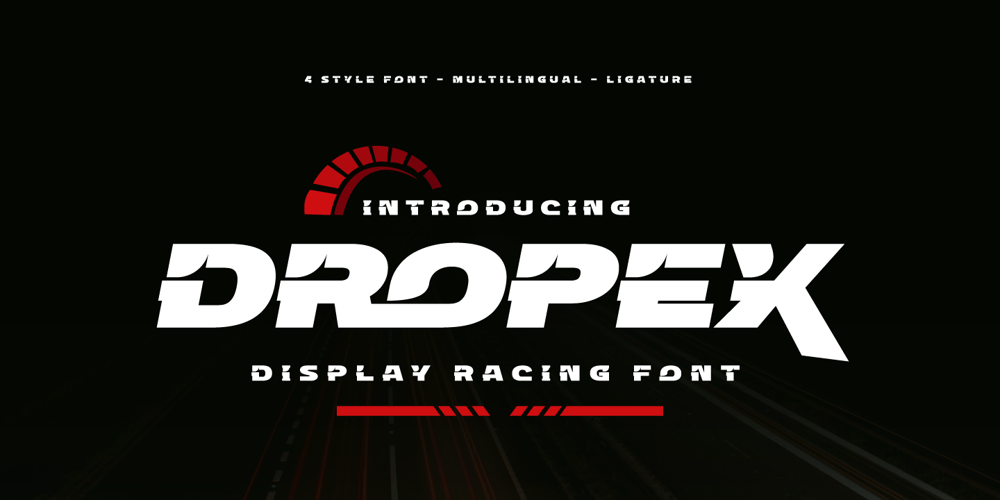
Dropex Font Family was designed by Lita Faolina and published by Product Type. Dropex contains 4 styles and family package options. Dropex Racing Font is a bold, strong, and uniquely shaped font, masculine, and easy to read. This font was designed with attention to detail to make your design project stand out from the rest. Regular Style has been used in my free and premium products. comes in 4 slightly different styles, making it easy for you to choose according to your choice, using this font will definitely spice up any design project.